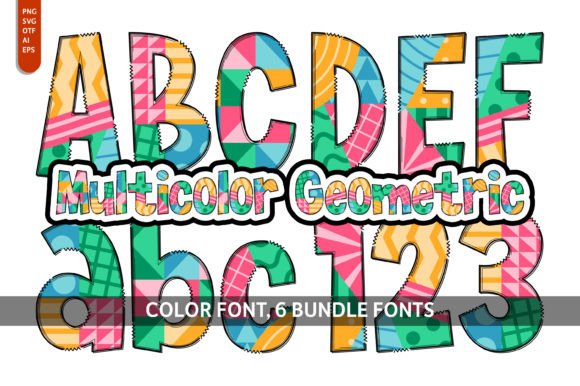
Discover the Enchanting World of Multicolor Geometric Bundle Font: Where Imagination and Design Unite
Step into a captivating realm of colors, creativity, and artistic expression with Multicolor Geometric Bundle Font, a vibrant and whimsical font family designed to ignite your imagination. Crafted with a playful spirit, this font collection is a treasure trove of possibilities, adding a dash of magic and a splash of cheer to your digital creations.
With its vibrant hues and captivating geometric shapes, Multicolor Geometric Bundle Font is an artistic masterpiece that instantly draws attention and sparks joy. It's like having a box of colorful crayons, inviting you to color your designs with limitless creativity. Whether you're creating whimsical children's books, designing eye-catching posters, or crafting heartfelt invitations, this font family will add a touch of enchantment to your every project.
Designed with readability in mind, Multicolor Geometric Bundle Font ensures an engaging reading experience for young audiences. Its playful and friendly characters dance across the page, creating a captivating visual symphony that keeps readers engaged and entertained. Whether it's a storybook adventure or an educational text, this font family will make reading a delightful and memorable experience.